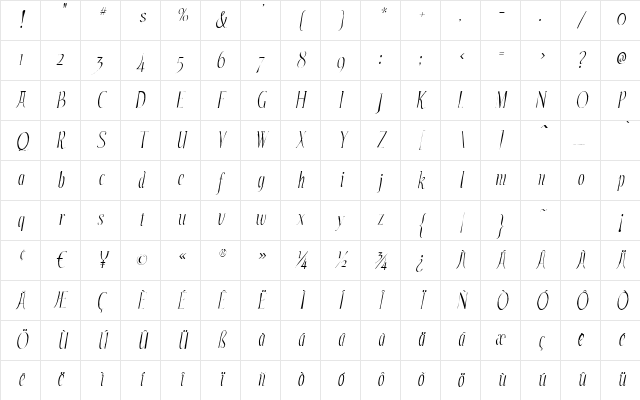
Echelon Gaunt Italic
Designer: Ray Larabie ::: Larabie Fonts
Design Context for Echelon Gaunt
Echelon Gaunt is a composed and adaptable typeface that performs quietly and consistently across a wide range of design contexts. The slanted form adds forward momentum and visual energy.